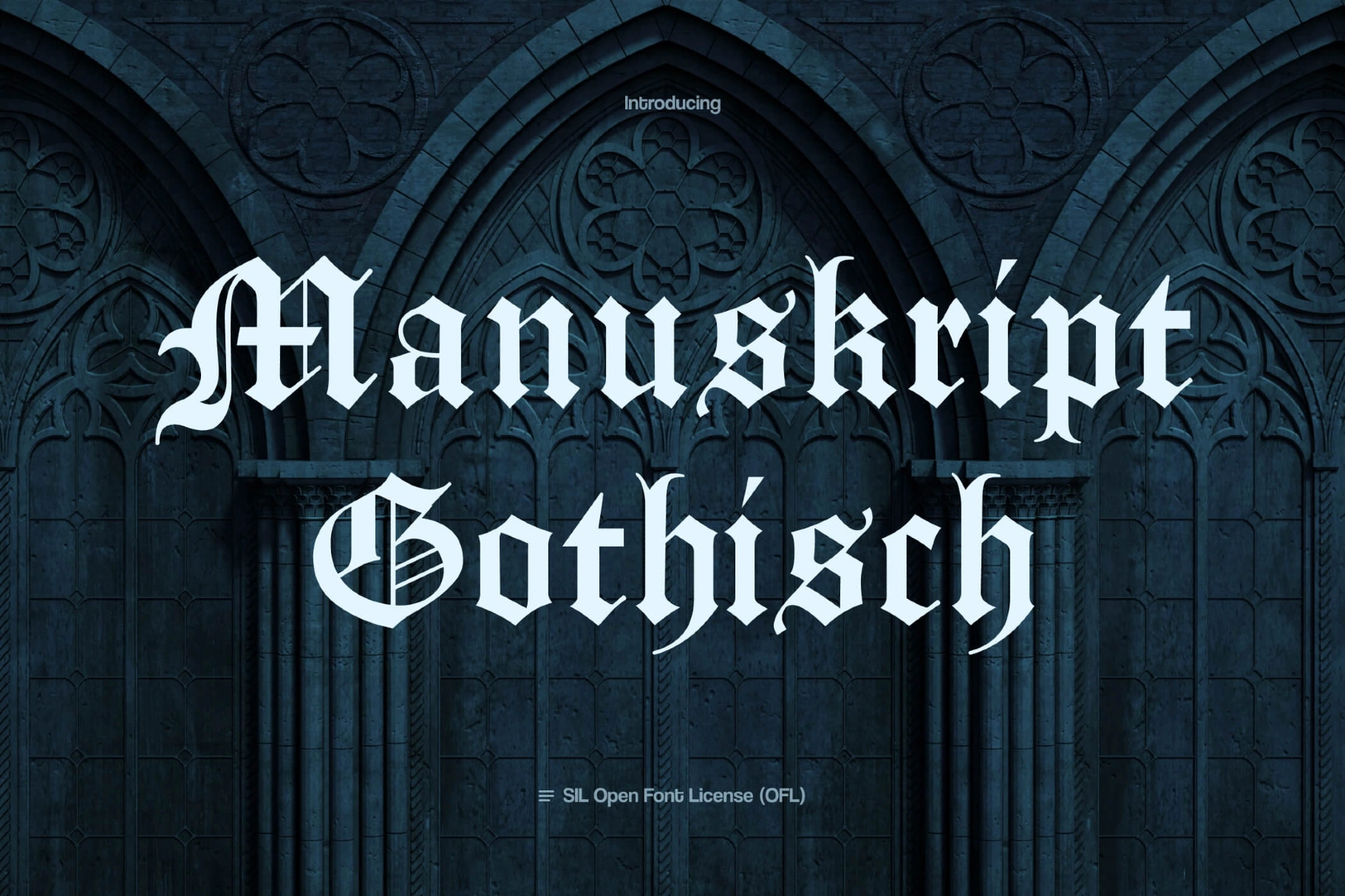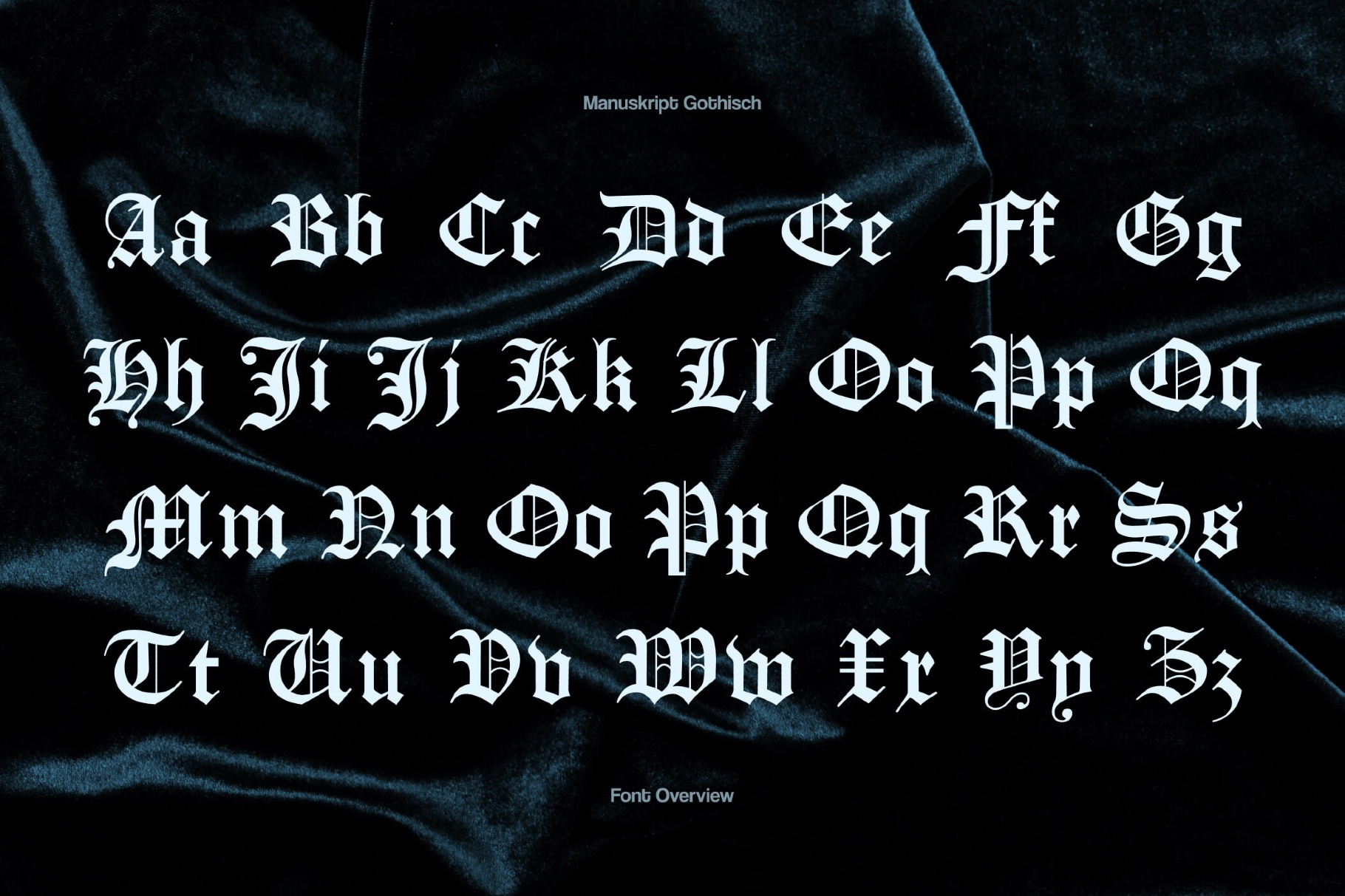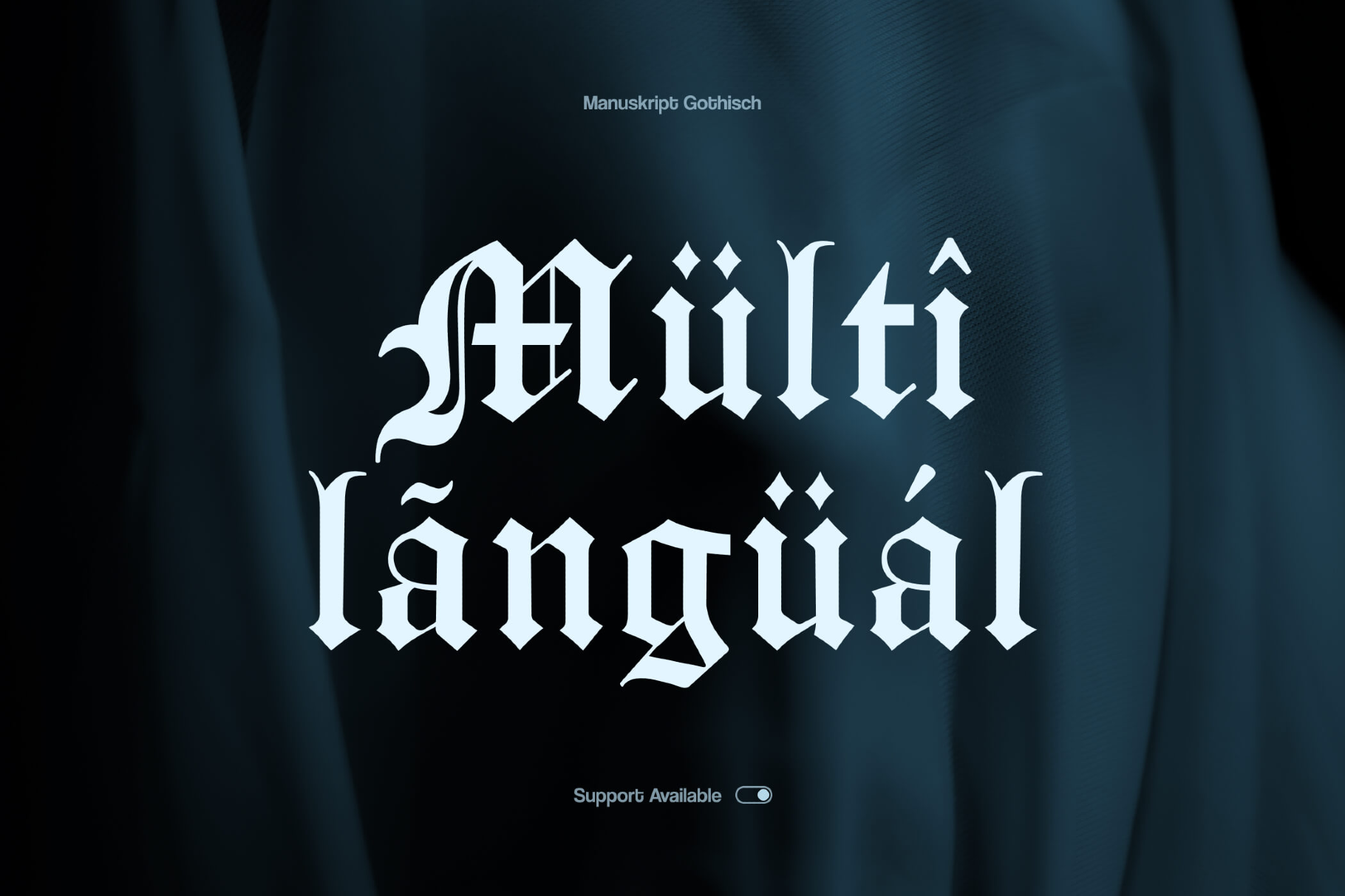
Manuskript Gothic Font
Manuskript Gothisch UNZ1A
Manuskript draws on traditional blackletter book hands, with tall vertical strokes, angular curves, and compact proportions. With its subtle irregularities, it keeps the shapes lively, and the sharp serifs and ornate capitals complete the ceremonial, historic voice.